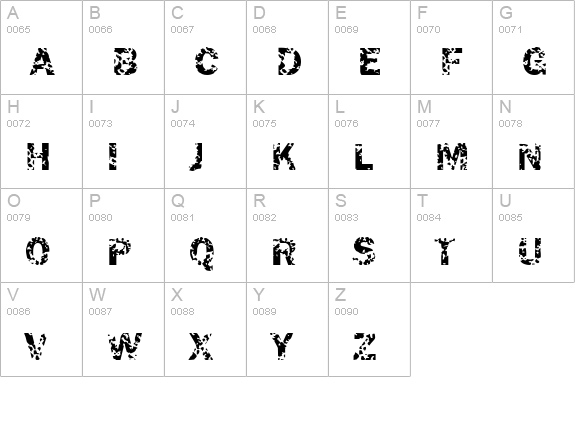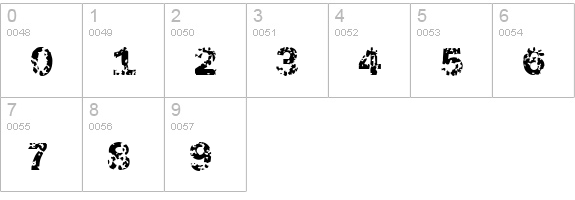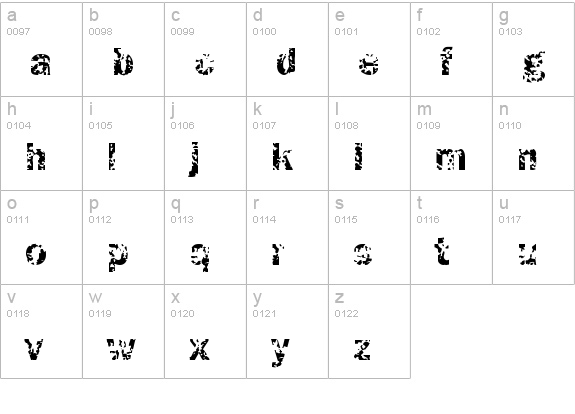
Funky05-Bold Font Details
Funky05-Bold is a strong, high-contrast variant in the Funky05 typeface family \xE2\x80\x94 well suited to headlines, attention-grabbing titles, and strong calls-to-action.
Funky05-Bold font is a vibrant and energetic typeface that exudes a sense of fun and playfulness. Its bold and funky design makes it perfect for eye-catching headlines, posters, and other creative projects. The thick strokes and quirky angles give this font a unique and modern look that is sure to stand out. And the best part? Funky05-Bold is completely free to download at FontsMarket.com! Whether you're a designer looking to add a touch of personality to your work or just someone who appreciates a good font, this typeface is a fantastic choice. So go ahead and grab your free download today and let your creativity shine with Funky05-Bold!